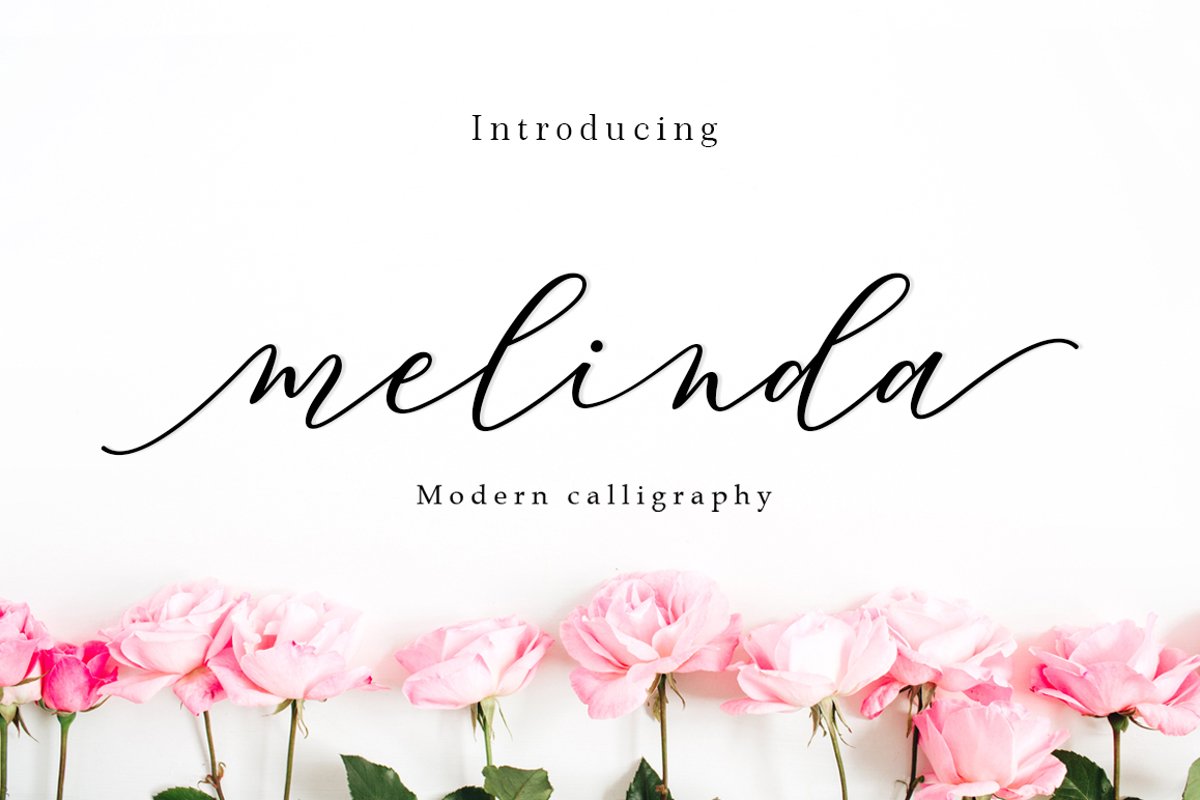
Melinda Script
Melinda Script a new fresh & modern script with a handmade calligraphy style, decorative characters and a dancing baseline! So beautiful on invitation like greeting cards, branding materials, business cards, quotes, posters, and more!!
Melinda Script come with 480+ glyphs. The alternative characters were divided into several Open Type features such as Swash, Stylistic Sets, Stylistic Alternates, Contextual Alternates. The Open Type features can be accessed by using Open Type savvy programs such as Adobe Illustrator, Adobe InDesign, Adobe Photoshop Corel Draw X version, And Microsoft Word. And this Font has given PUA unicode (specially coded fonts). so that all the alternate characters can easily be accessed in full by a craftsman or designer.
NOTE : Tail is available only for lowercase letters.